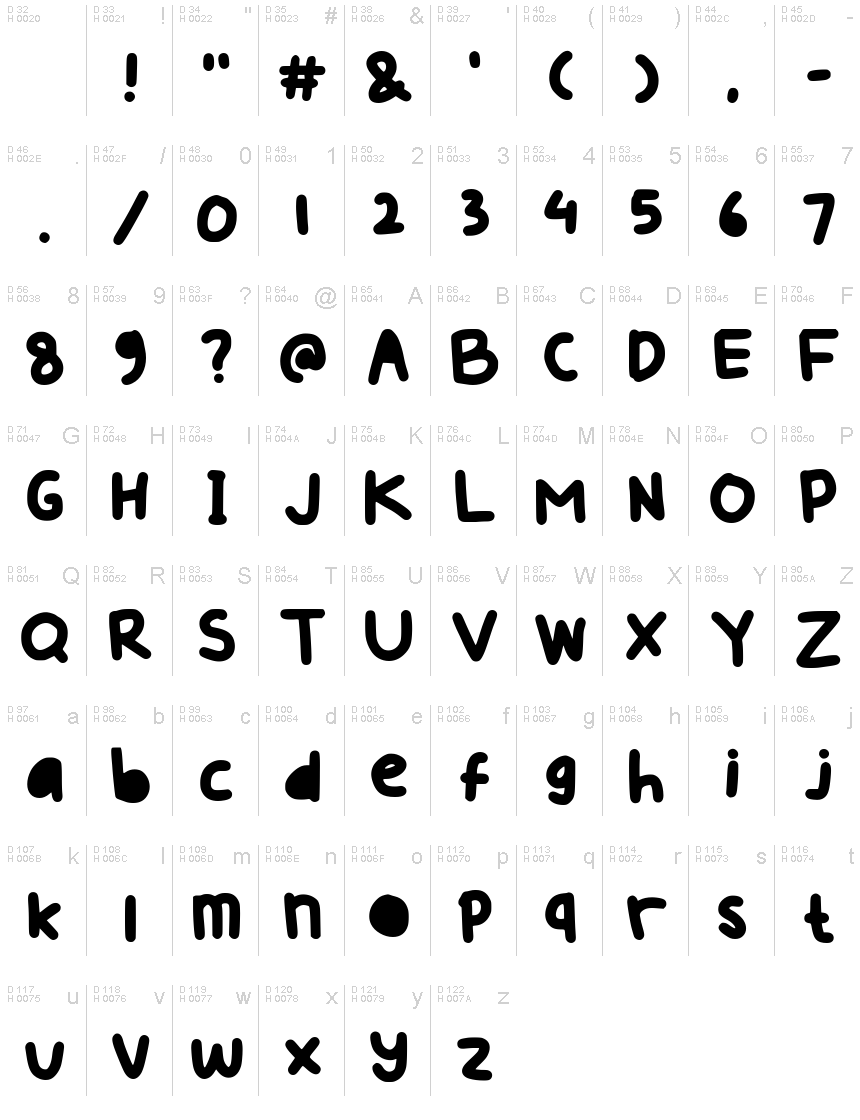
Cherryplfumpy Regular
Cherryplfumpy font figured bold and bustling as a graphic typeface with a mood that’s freely playful. Kimwinnie the author of this free font designed it for personal use on non-commercial projects keeping in mind that it wasn’t for sale but casual craftmanship. Additionally, this lovely informal typeface has a magical atmosphere to its visual presence making your wanders back to childhood summer days.